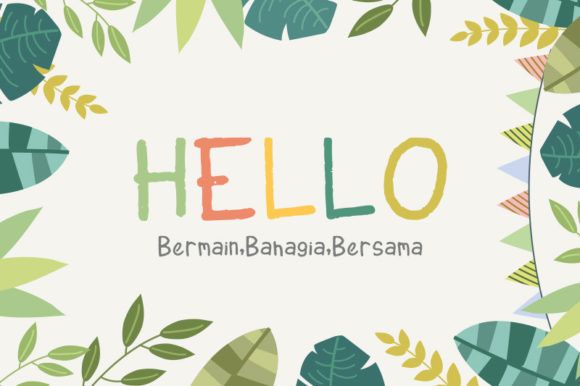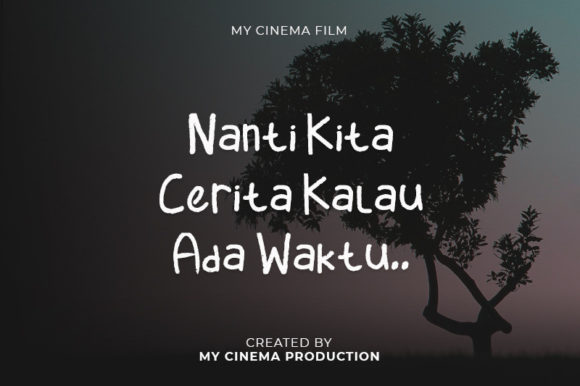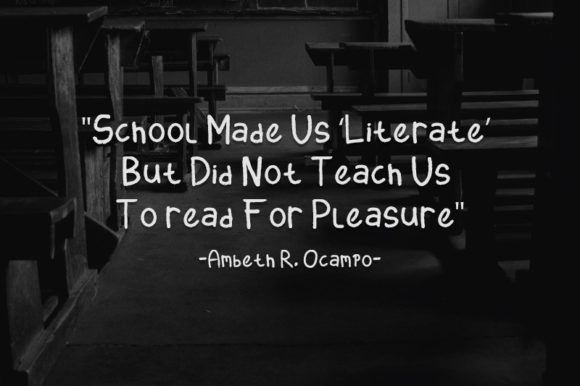
About Sekolah Font
Sekolah is a simple, childish, brushed handwritten font. Whimsical and a bit quirky, this font will brighten up each of your designs. Add it confidently to your projects, and you will love the results.